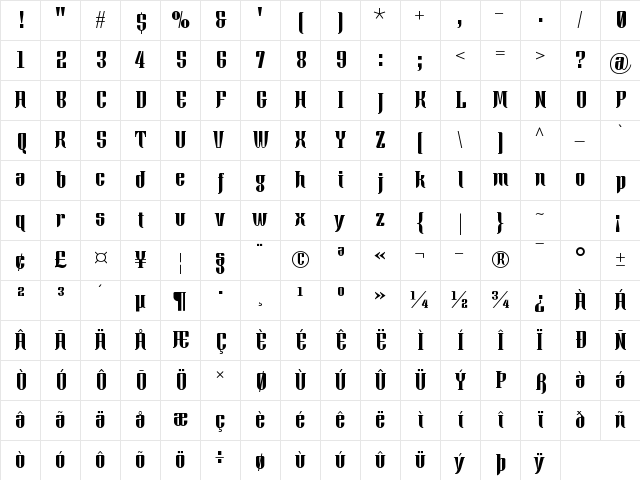
Xacose Regular
| Designer | Situjuh Nazara |
Design Context for Xacose Typeface
Xacose is a composed and adaptable typeface that performs quietly and consistently across a wide range of design contexts.